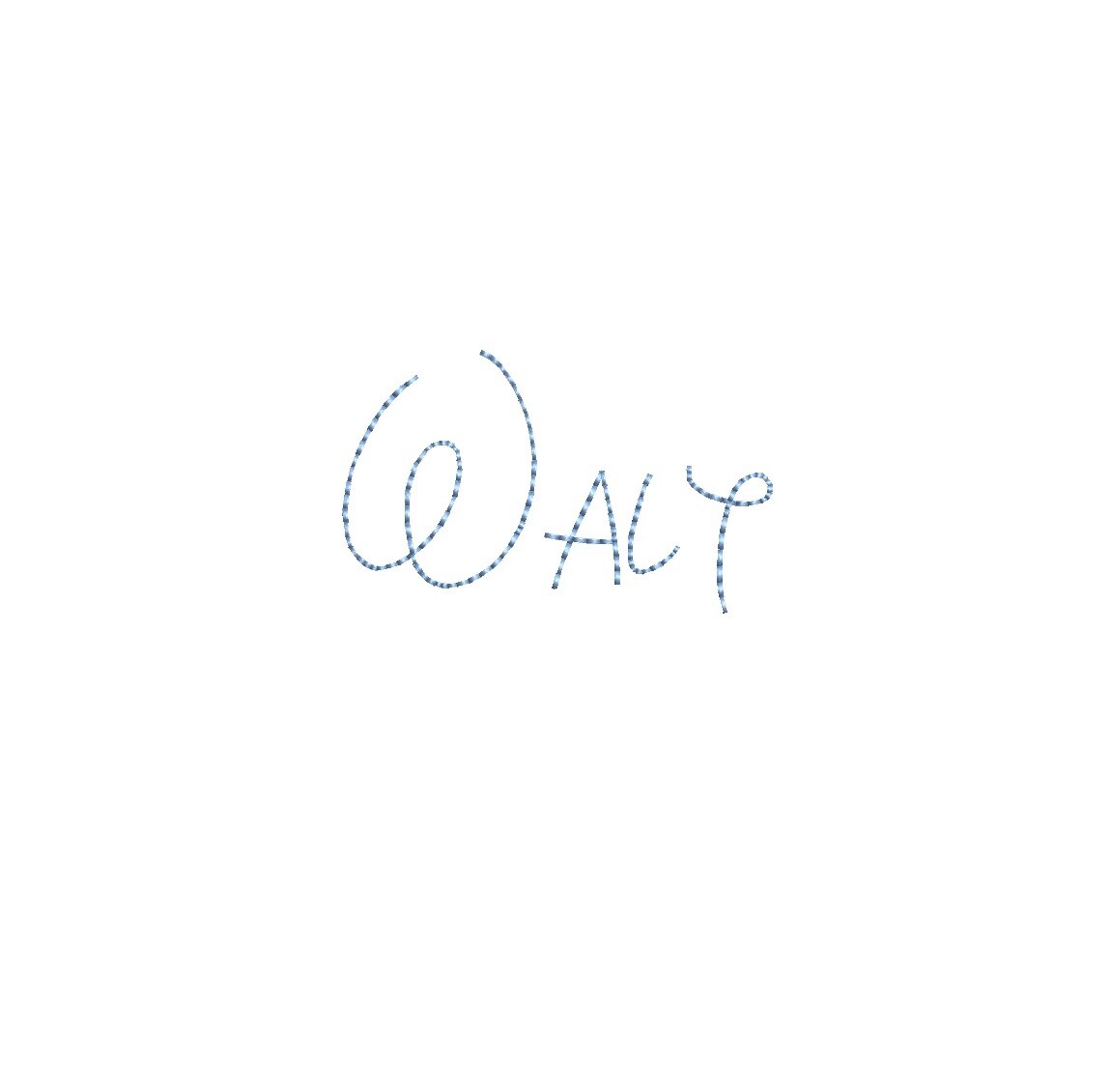
Introducing the timeless Walt Bean Stitch ESA font, your ultimate digitizing companion, compatible with Wilcom Studio e4.5.6 and Hatch 3 versions and up. This font pays homage to classic elegance, perfect for various embroidery projects. Its refined bean stitch style adds a touch of sophistication to apparel, accessories, and home decor. With seamless curves and impeccable lines, the Walt ESA font ensures flawless embroidery results. Impress clients and showcase your artistic finesse effortlessly with this user-friendly font, seamlessly integrating with your preferred software. Don't miss the opportunity to create timeless embroidery masterpieces. Elevate your designs to a new level - get it now!